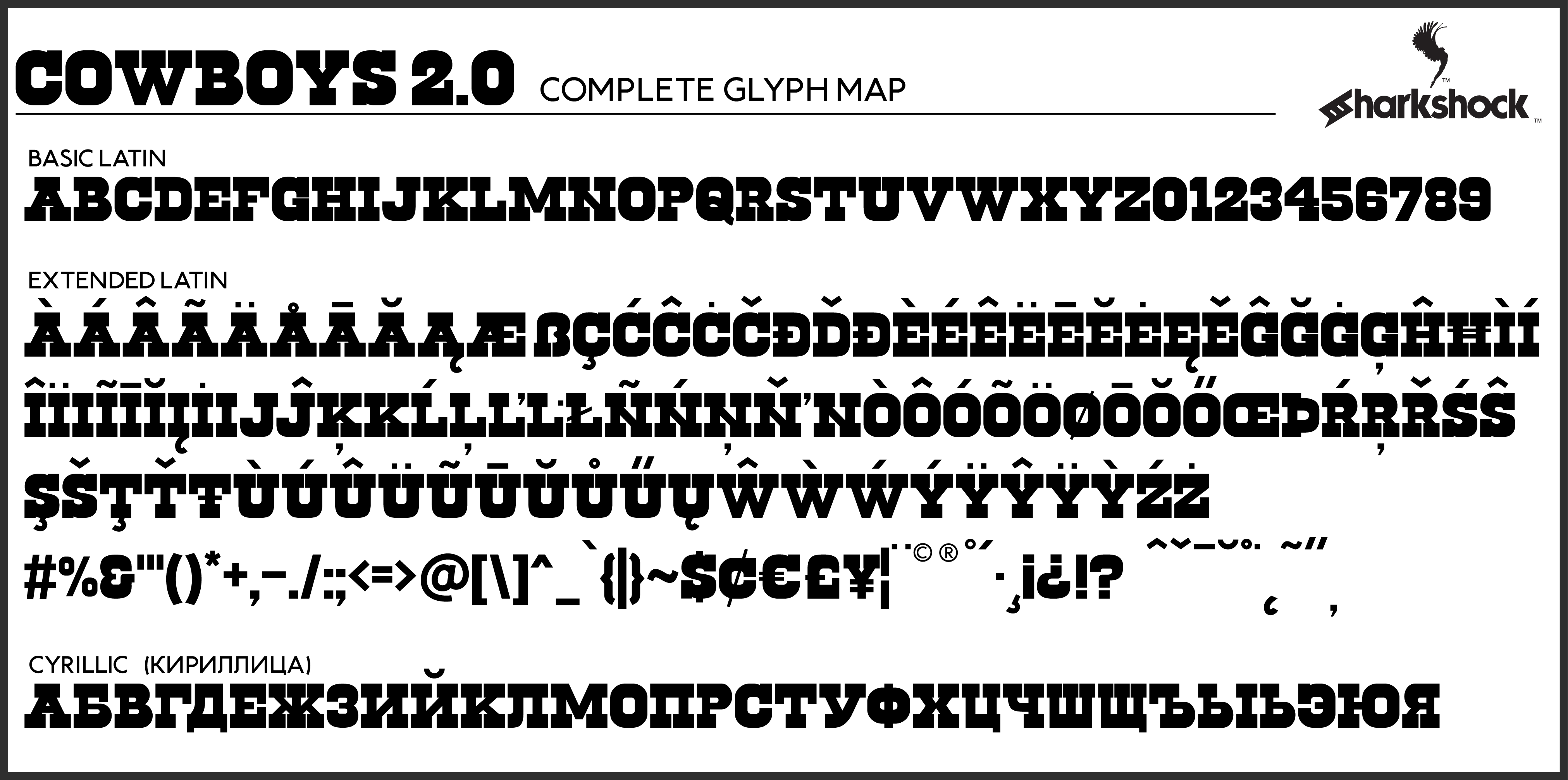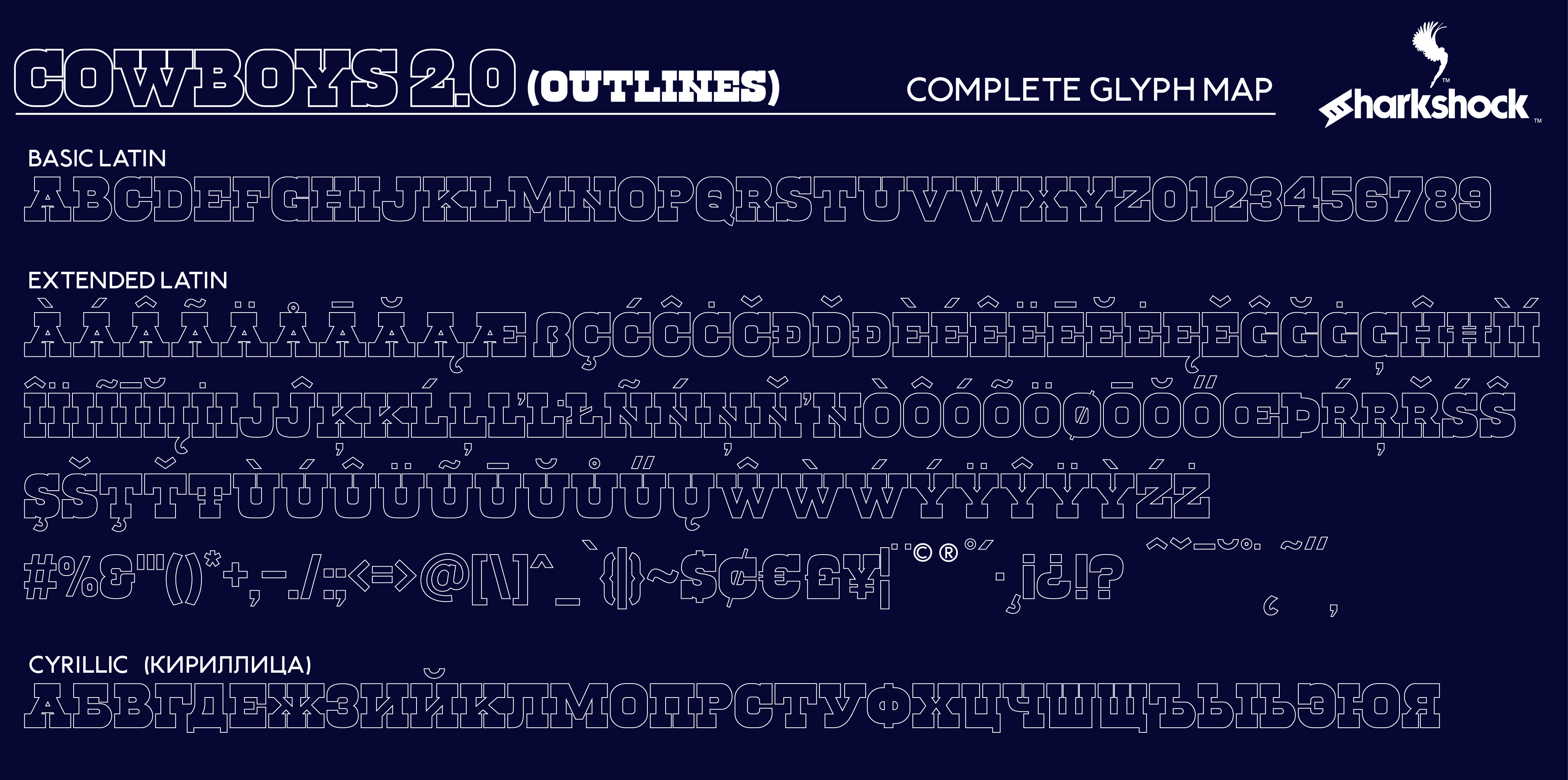
Cowboys 2.0 Font: A Timeless Classic Gets a Modern Makeover
After years of being a staple in the design world, the iconic Cowboys font is back with a bang! Cowboys 2.0 is the latest iteration of this beloved slab serif font, carefully redesigned to meet the demands of modern design. This facelift is as bold as the Texas plains themselves, bringing a fresh new look to this long-time classic.
A Brief History of Cowboys Font
First introduced as a rugged, no-nonsense slab serif font, Cowboys quickly gained popularity among designers and crafters for its unique blend of rustic charm and urban grit. Its versatility made it a go-to choice for a wide range of applications, from t-shirts and logos to posters and billboards. However, as design trends evolved, the original Cowboys font began to show its age.
Cowboys 2.0: A Modern Take on a Classic
Enter Cowboys 2.0, a thoroughly redesigned and updated version of the original. This new iteration boasts a refined aesthetic, carefully crafted to meet the standards of today’s print design. The result is a font that is both nostalgic and modern, perfect for designers and crafters looking to add a touch of classic flair to their work.
What’s New in Cowboys 2.0?
So, what’s changed in Cowboys 2.0? Here are just a few key updates:
- Expanded Character Set: Cowboys 2.0 includes a comprehensive character set, featuring Basic Latin, Extended Latin, Cyrillic, punctuation, and kerning. This ensures that designers have access to a wide range of characters, making it easier to create cohesive and professional-looking designs.
- Outlines Version: In addition to the standard font files, Cowboys 2.0 also includes an outlines version, providing designers with even more flexibility and creative options.
- Titling Display Font: It’s worth noting that Cowboys 2.0 is a titling display font, which means it’s optimized for use at larger sizes. While not all characters are included, the font is perfect for headlines, logos, and other display applications.
Use Cowboys 2.0 for Your Next Design Project
With its unique blend of classic charm and modern style, Cowboys 2.0 is the perfect font for a wide range of design projects. Here are just a few ideas to get you started:
- T-Shirts: Add a touch of rugged elegance to your apparel designs with Cowboys 2.0.
- Logos: Use Cowboys 2.0 to create bold, eye-catching logos that make a statement.
- Posters: Add a touch of classic flair to your poster designs with Cowboys 2.0.
Tips for Working with Cowboys 2.0
To get the most out of Cowboys 2.0, here are a few tips to keep in mind:
- Experiment with Font Sizes: Cowboys 2.0 is optimized for use at larger sizes, so don’t be afraid to experiment with different font sizes to find the perfect fit for your design.
- Pair with Other Fonts: Cowboys 2.0 pairs well with a wide range of fonts, so feel free to get creative and experiment with different font combinations.
- Pay Attention to Kerning: As with any font, kerning is crucial to creating a professional-looking design. Take the time to adjust the kerning to ensure that your text looks smooth and polished.
Cowboys 2.0 is a game-changer for designers and crafters looking for a unique and versatile font. With its modern aesthetic, expanded character set, and flexibility, this font is sure to become a staple in any design toolkit. Whether you’re creating t-shirts, logos, posters, or any other type of design, Cowboys 2.0 is the perfect choice. So why wait? Download Cowboys 2.0 today and start creating!